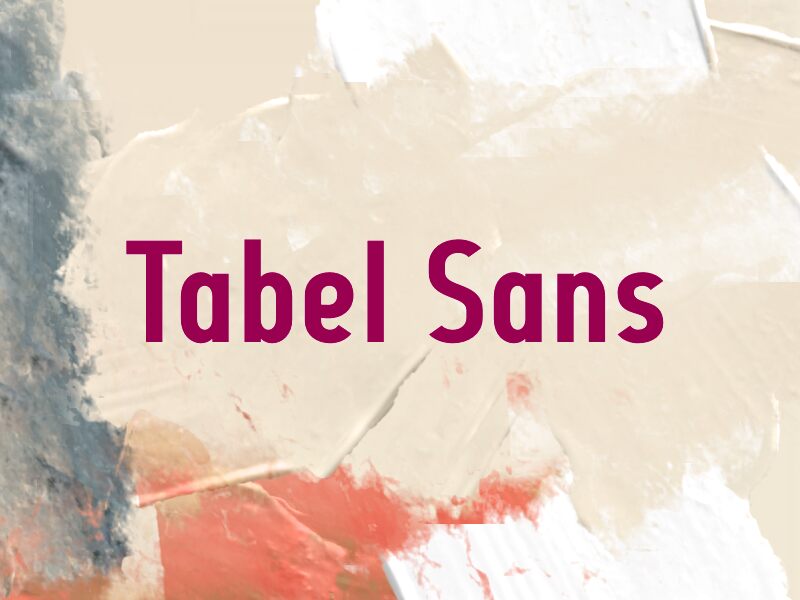
Tabel Sans font designed by wepfont.com is a free font with straightforward execution and a professional appearance. It is a sans serif typeface carrying modern, geometric, and minimalist characteristics. Furthermore, the font is clean, neutral, and easy on the eye due to its legibility. While it is best used in digital purposes, it can be printed as well.
Consider Tabel Sans for contemporary and relevant branding/identity projects. It also works for marketing projects, design, and advertising. Additionally, this font is great in web design, UI/UX design, motion graphics, straightforward mobile applications, infographics, posters, and others.
Tabel Sans is a versatile and modern font that brings clarity and elegance to your designs. Ideal for both digital and print applications, this free font offers a clean and professional aesthetic, making it perfect for branding, advertising, and any creative project. With its smooth lines and contemporary style, Tabel Sans stands out while remaining highly readable.